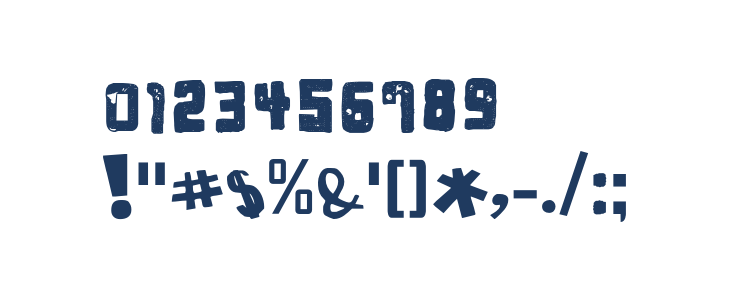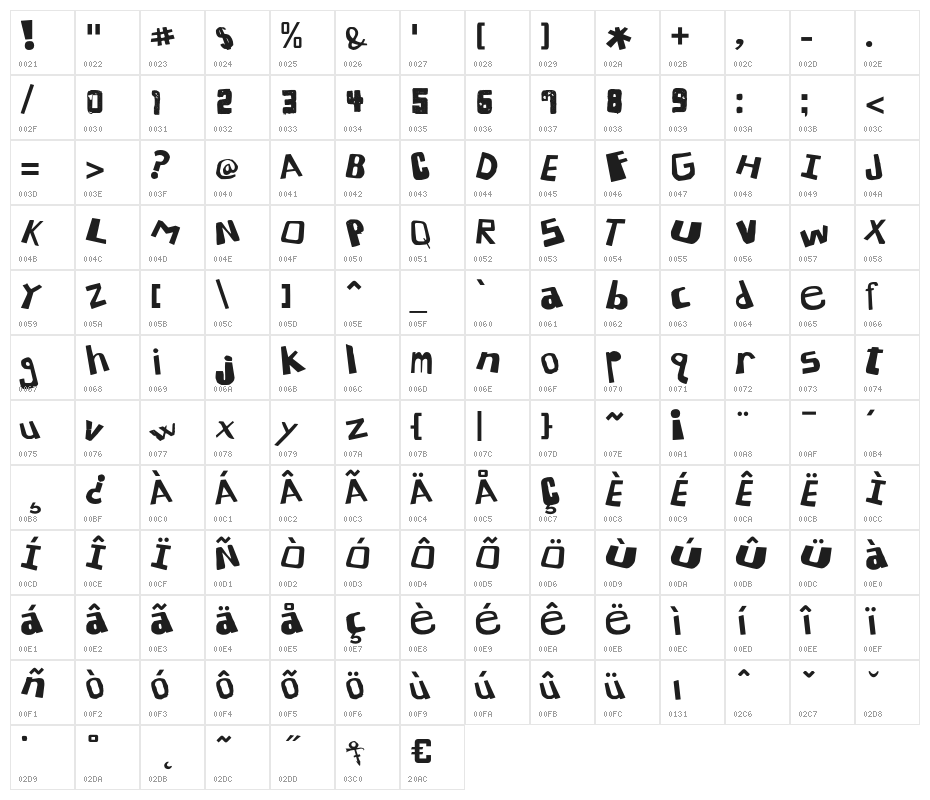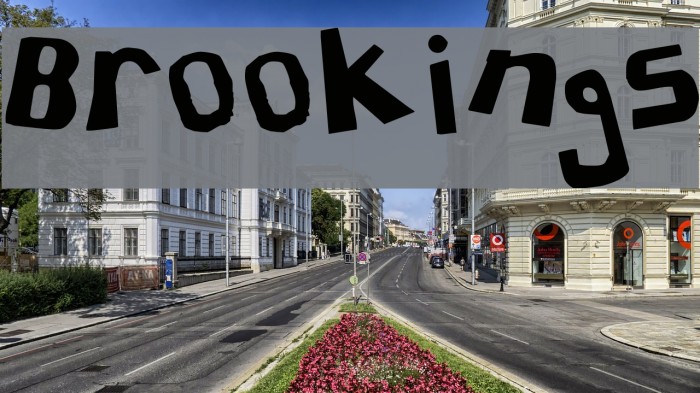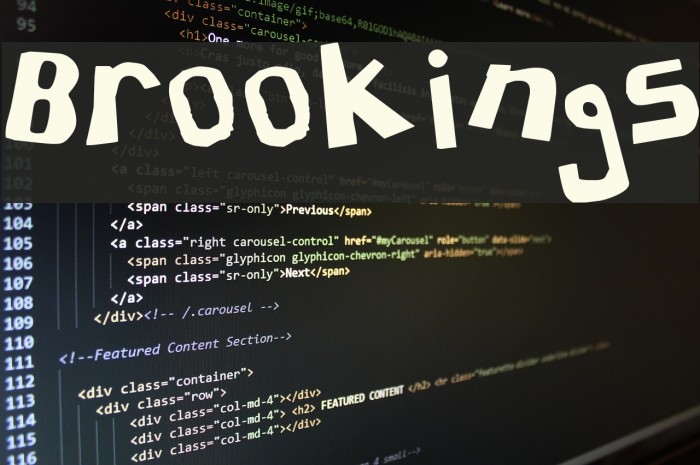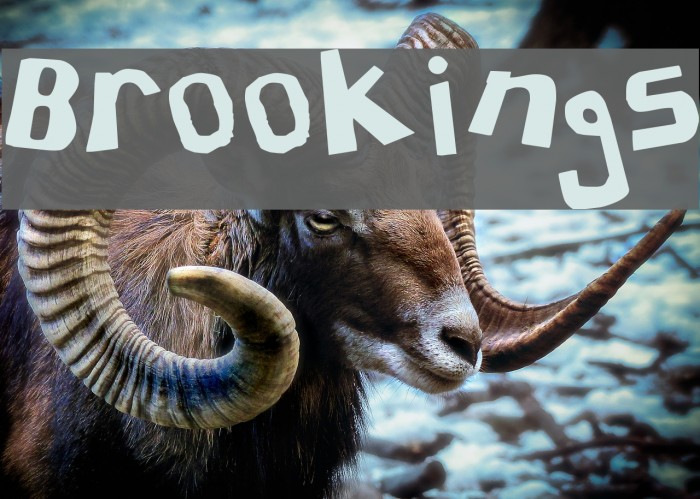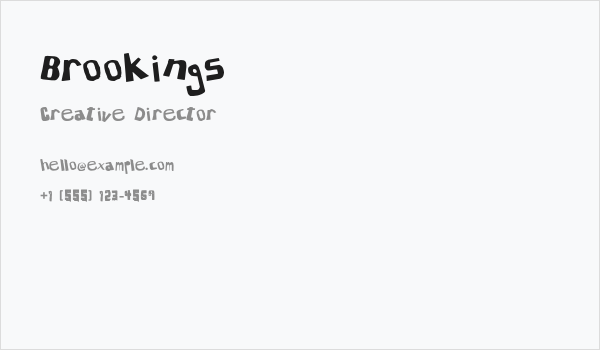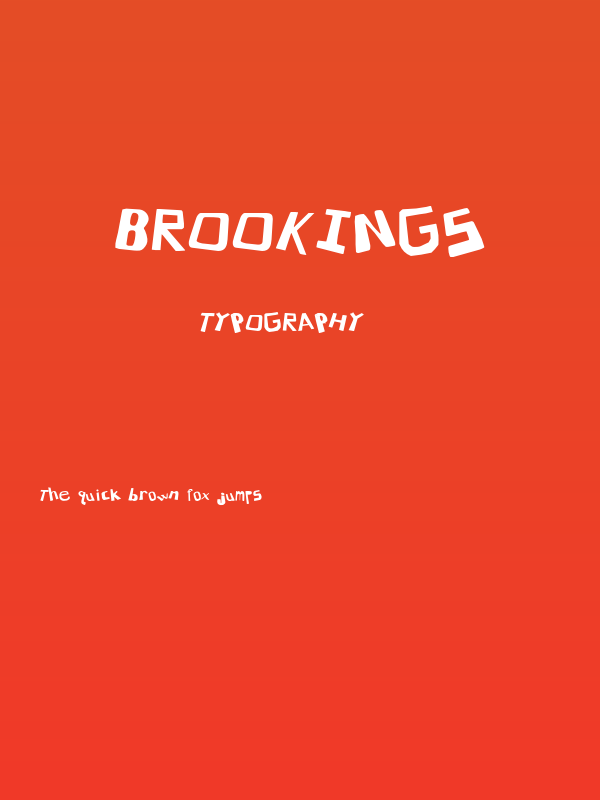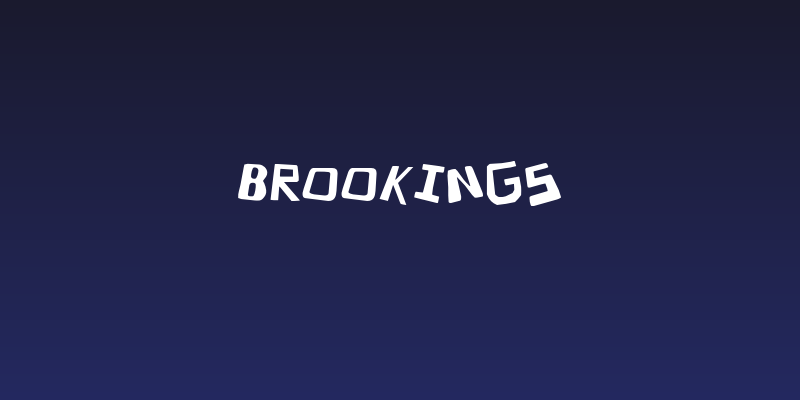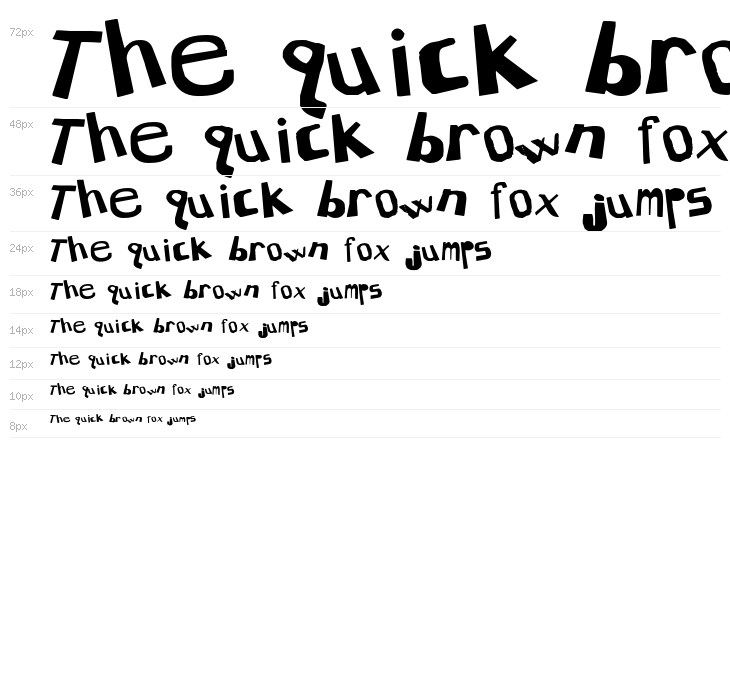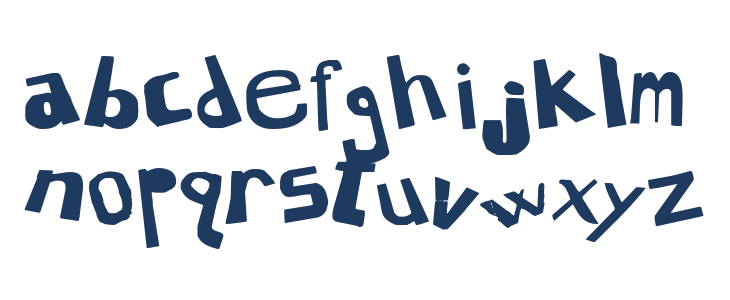
Brookings Font
Brookings Description
This font features a playful and eclectic style, with each character exhibiting a unique and irregular shape. The letters are bold and have a hand-drawn appearance, giving them a whimsical and artistic feel. The uppercase and lowercase letters maintain a consistent style, with varying widths and angles that add to the font's quirky charm. The numbers and special characters follow the same design principles, ensuring a cohesive look throughout. This font is ideal for projects that require a fun and informal touch, such as children's books, posters, and creative branding.
| Overall Style | Playful, Artistic |
| Use Case | Headlines, Posters, Creative Branding |
| Proposed Projects | Ideal for children's books, posters, creative branding, and informal designs. |